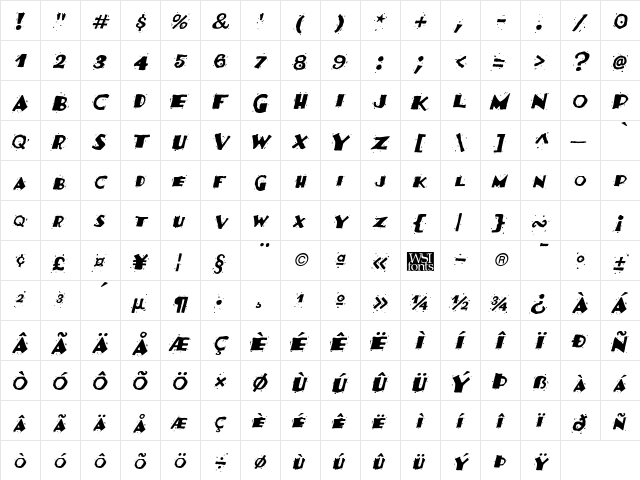
TacoFestiva Italic
Design Context for TacoFestiva Typeface
TacoFestiva is a composed and adaptable typeface that performs quietly and consistently across a wide range of design contexts. The dynamic lean of this cut emphasises speed and emphasis in any layout.
Pro Tip: Try TacoFestiva for annotation and caption copy alongside an upright companion — the contrast in angle creates a dynamic but ordered typographic system.